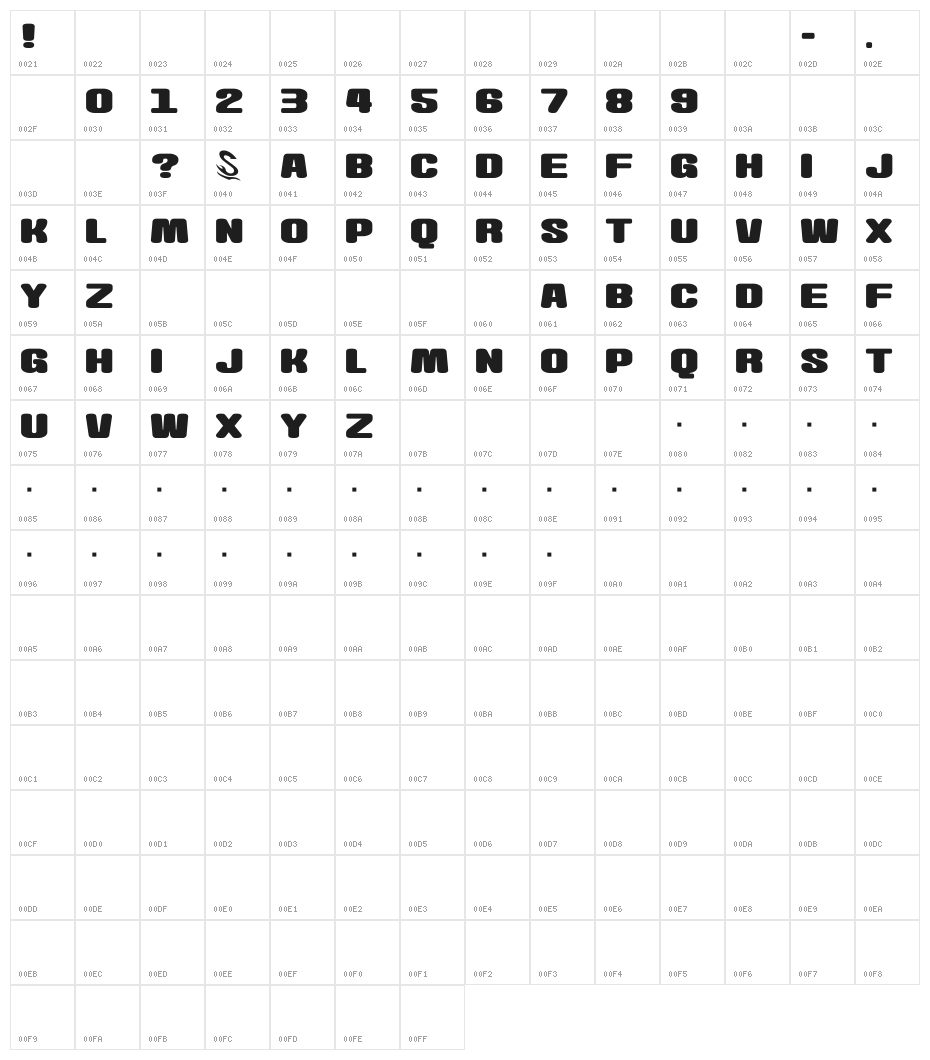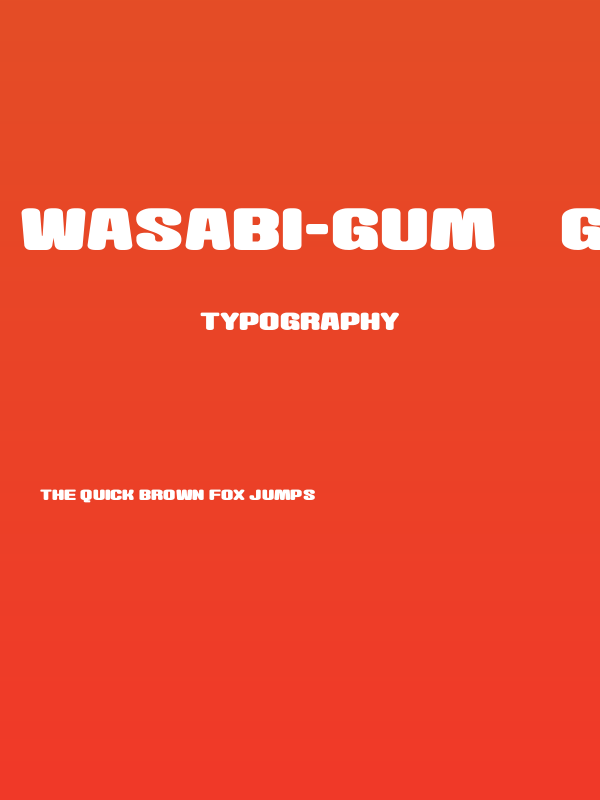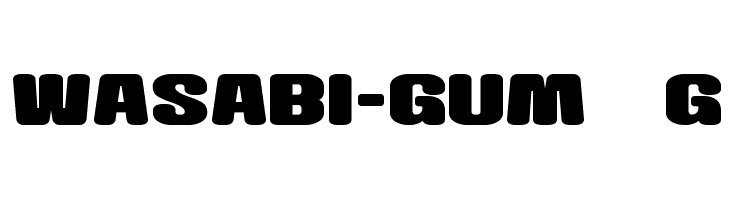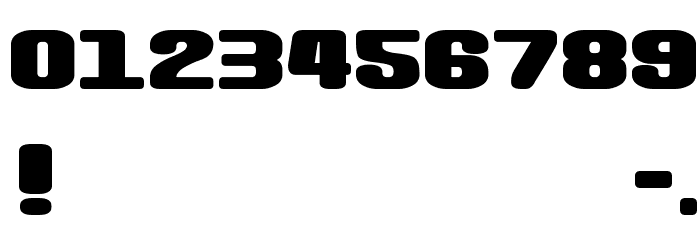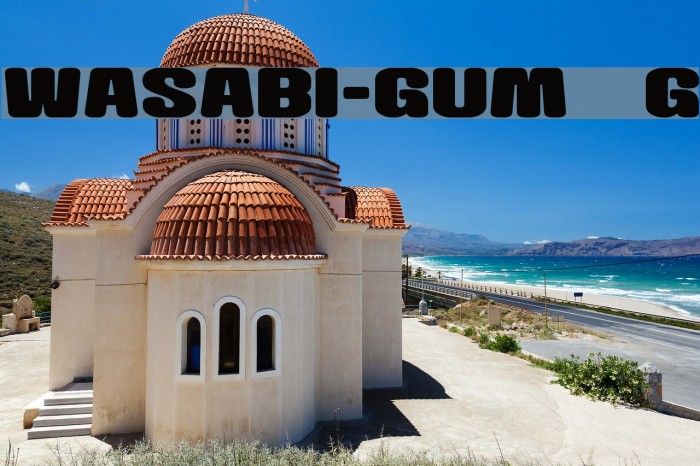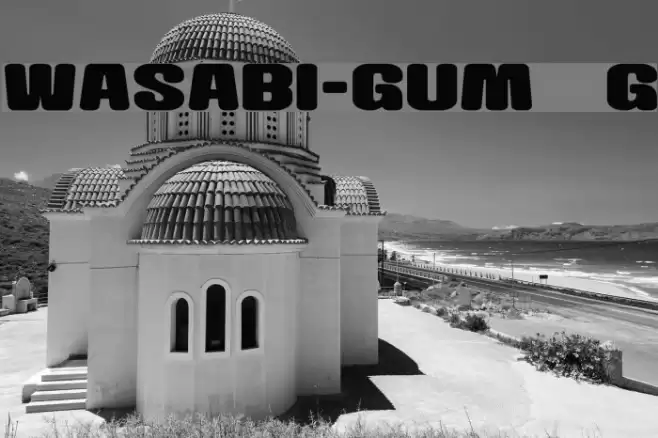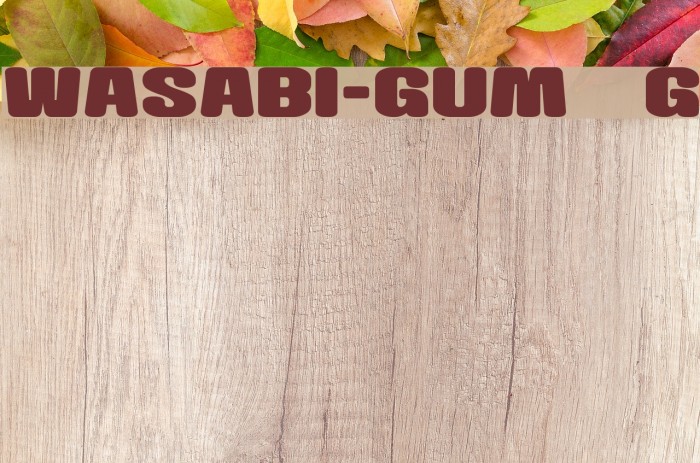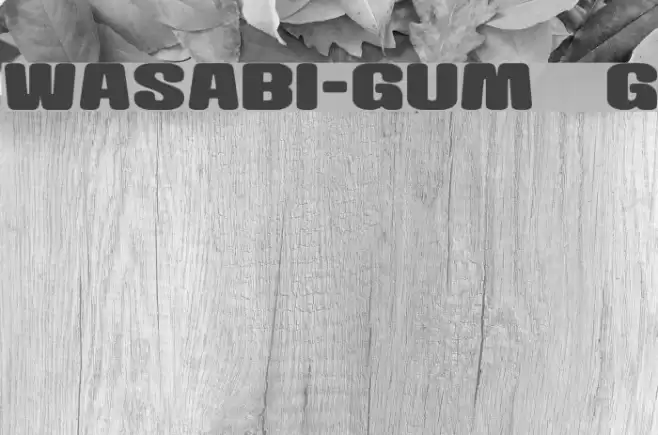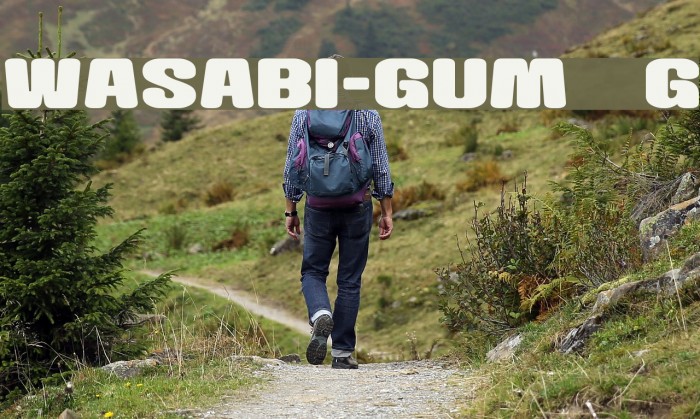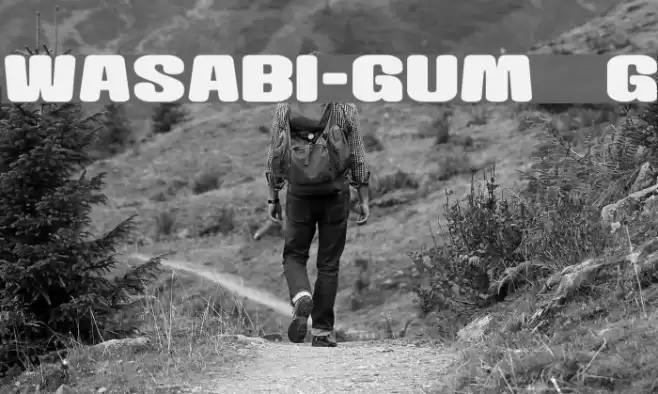
Wasabi-Gum__G Font
Wasabi-Gum__G Description
This font features a bold, rounded style with a playful and modern aesthetic. The characters are uniformly thick, giving a strong and impactful presence. The rounded edges soften the overall look, making it approachable and friendly. The uppercase and lowercase letters maintain consistent proportions, while the numbers and special characters integrate seamlessly with the alphabet. This font's design is ideal for creating a sense of fun and energy, making it suitable for various creative applications.
| Proposed Projects | Ideal for branding, posters, children's books, and playful graphic designs. |